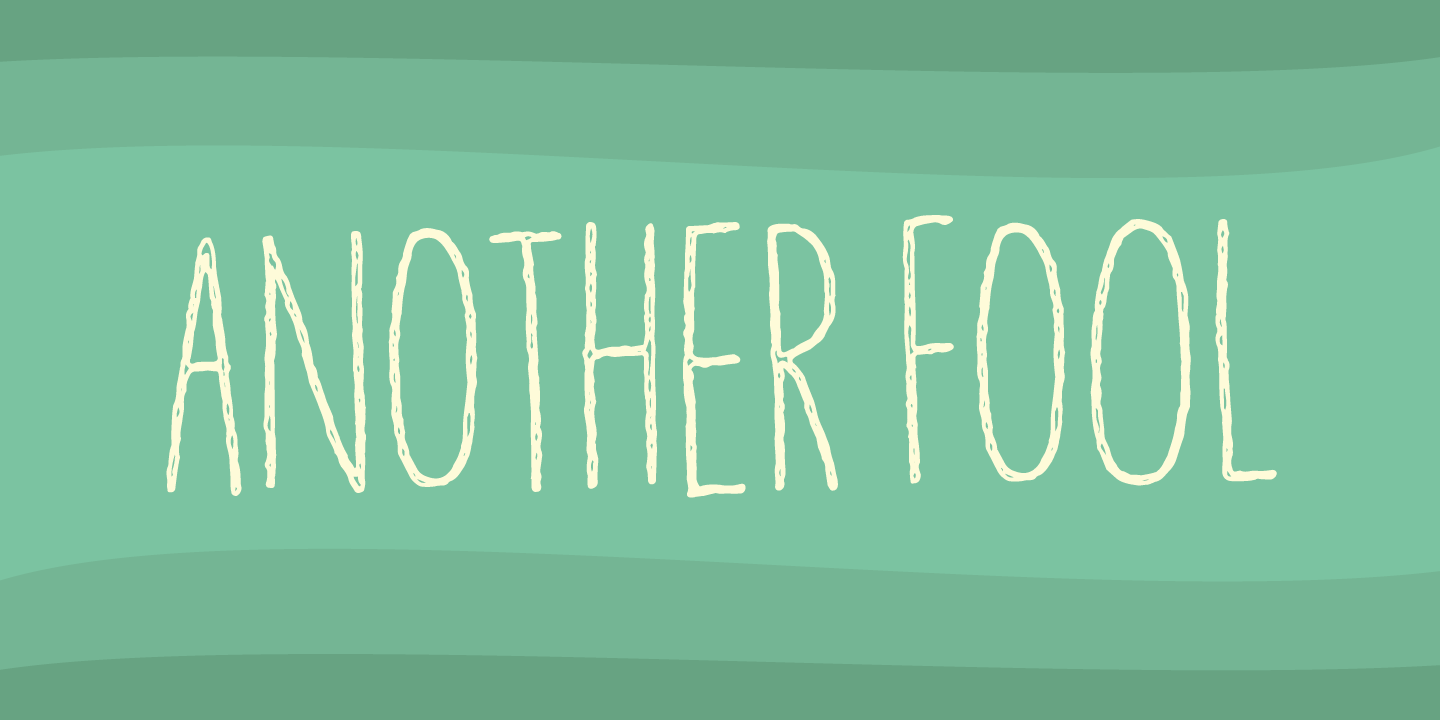
This playful typeface is perfect for comedy club branding, satirical publication designs, humor blog graphics, entertainment venue signage, parody poster creations, stand-up comedy promotions, joke merchandise designs, and lighthearted communications that require comedic authenticity and entertaining sophistication with irreverent charm and humorous personality.
Another Fool Font is exciting because it cleverly captures the essence of self-deprecating humor and comedic wisdom through its whimsically imperfect letterforms that celebrate the universal human experience of making mistakes while finding laughter in life's absurdities. The font's distinctive character design and comedic aesthetic evoke the world of professional comedians who transform everyday foolishness into entertainment gold, making it perfect for humor brands that want to convey comedic authenticity, relatable entertainment, and the kind of endearing self-awareness that connects with audiences seeking genuine laughter and lighthearted content.
The Another Fool Font family includes humor-inspired variations and comedic styling options, featuring regular, bold, condensed, and exaggerated versions, along with playful design elements and entertainment alternates that provide comedy venues and designers with comprehensive typographic tools for creating authentic humor branding and engaging comedic communications.
Embrace comedic wisdom with Another Fool Font Free Download, a typeface that brings authentic humor to contemporary entertainment and comedy branding projects. This exceptional font combines comedic intelligence with entertaining functionality, making it an indispensable resource for comedians, entertainment venues, and designers working on humor-focused brands or lighthearted marketing campaigns. The cleverly crafted letterforms ensure maximum entertainment value while conveying the comedic authenticity and humorous sophistication that defines this distinctly entertaining and authentically comedy-inspired typeface.